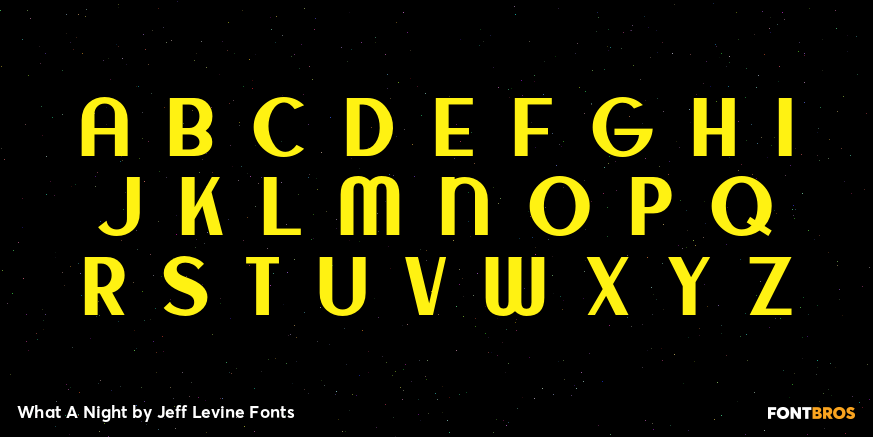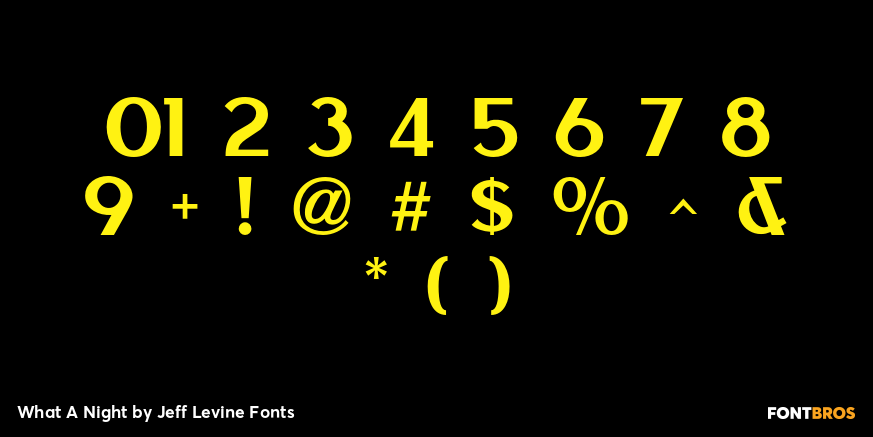
What A Night
The hand lettered title on the cover of the 1934 sheet music for 'What A Night' not only acted as a design model for What A Night JNL but also as its namesake.
The digital type face is available in both regular and oblique versions.